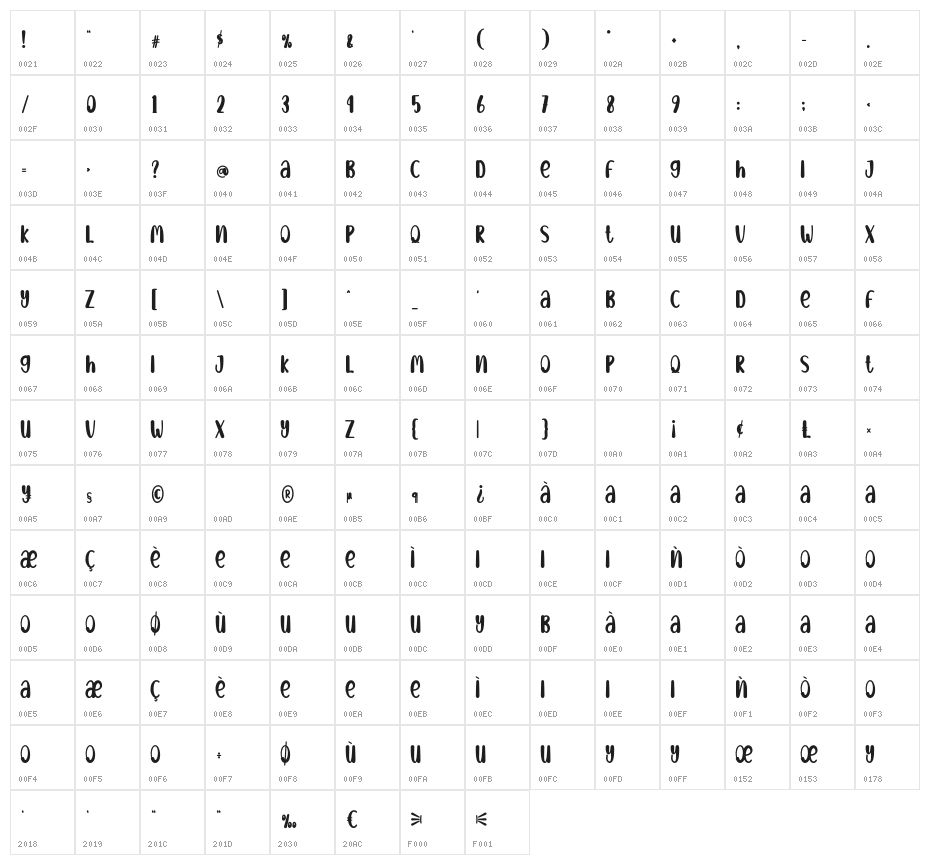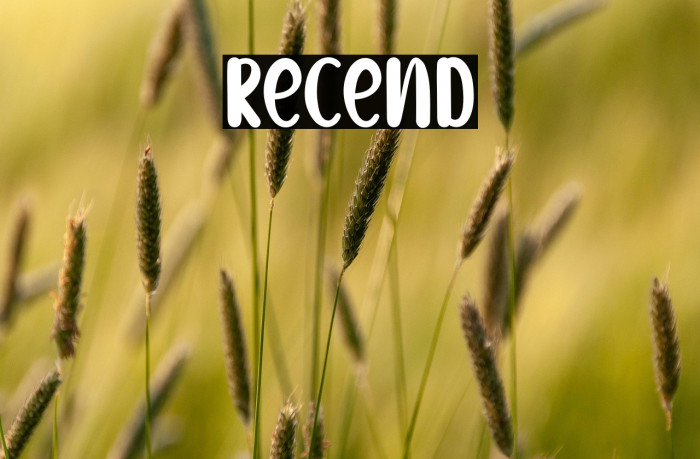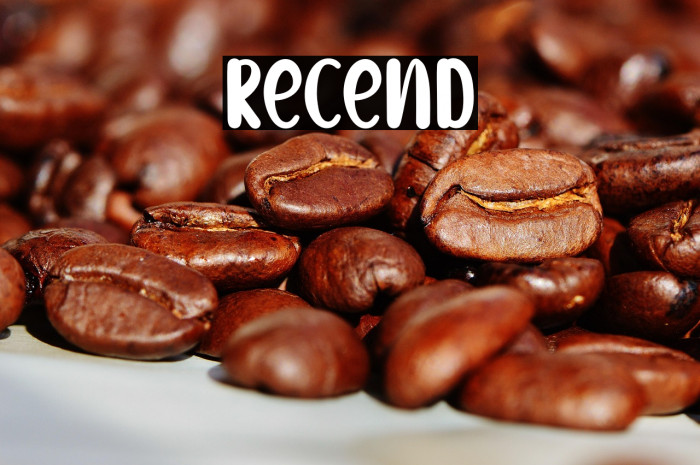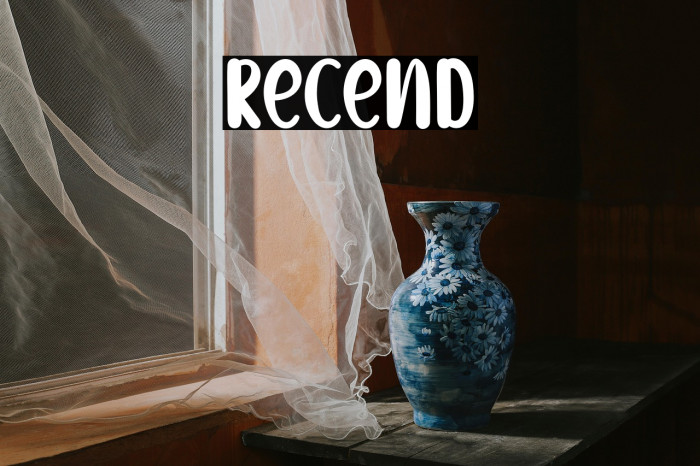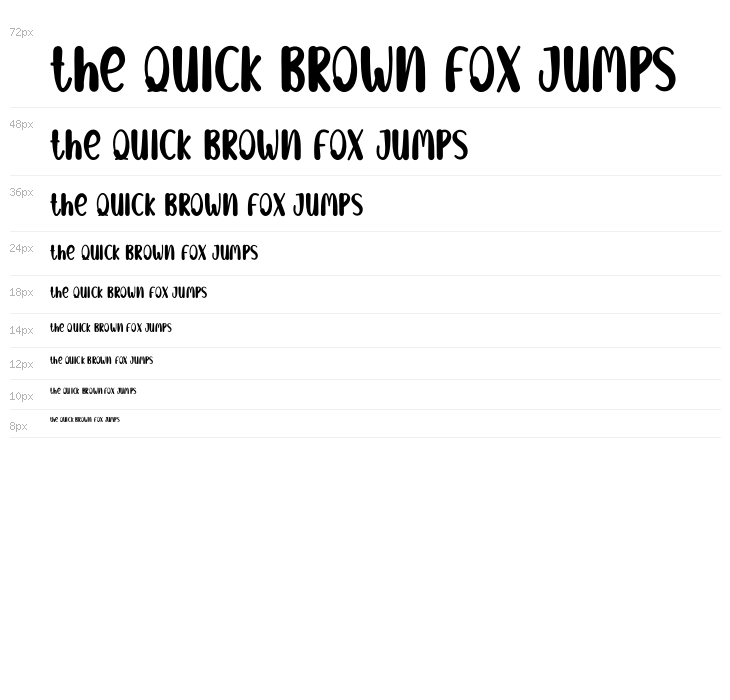
Recend Font
Recend Description
This font features a playful and bold design with rounded edges and a slightly irregular form, giving it a hand-drawn appearance. The uppercase and lowercase letters maintain a consistent style, with a whimsical flair that adds character to any text. The numbers and special characters are designed to match the playful theme, making them suitable for creative projects. The overall look is friendly and approachable, making it ideal for designs that require a touch of fun and personality.
| Overall Style | Playful, Hand-drawn |
| Proposed Projects | Ideal for children's books, playful branding, greeting cards, and creative posters. |